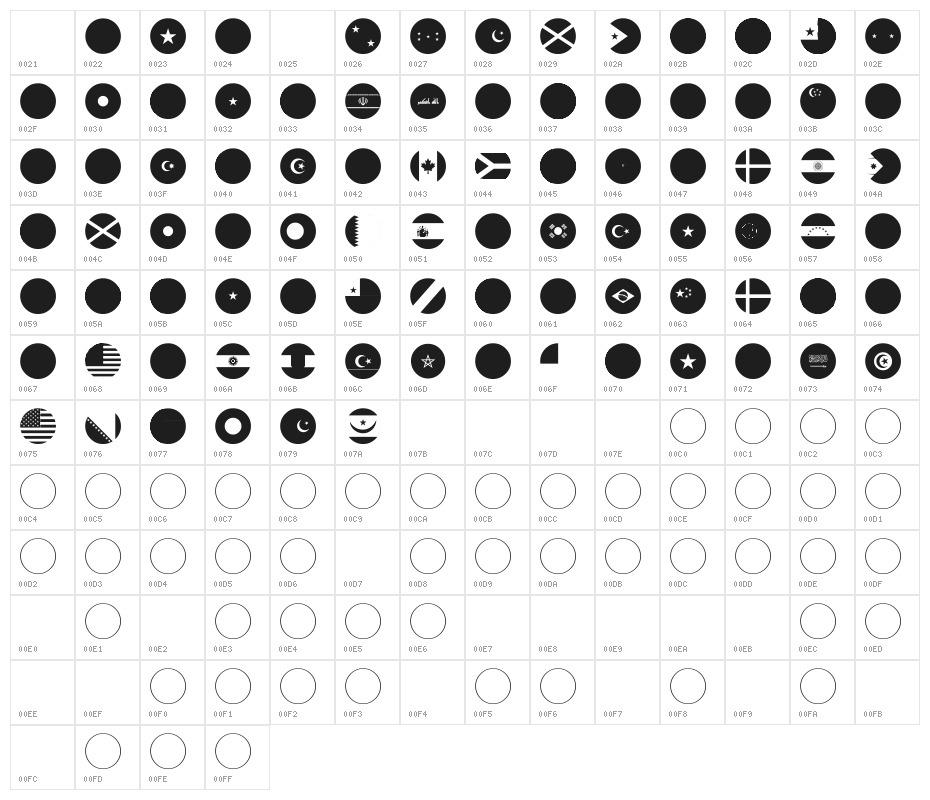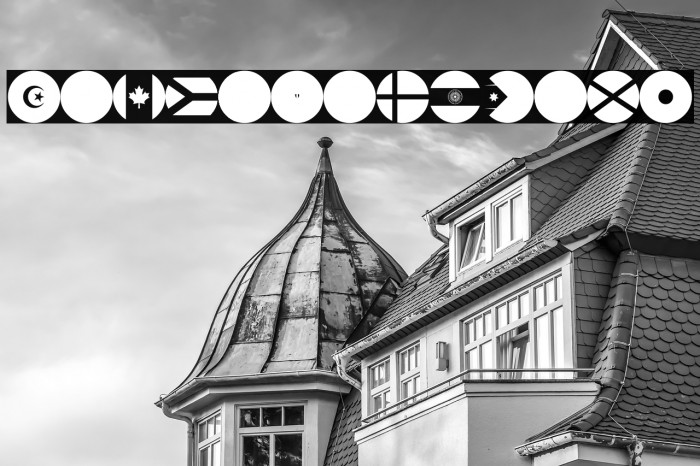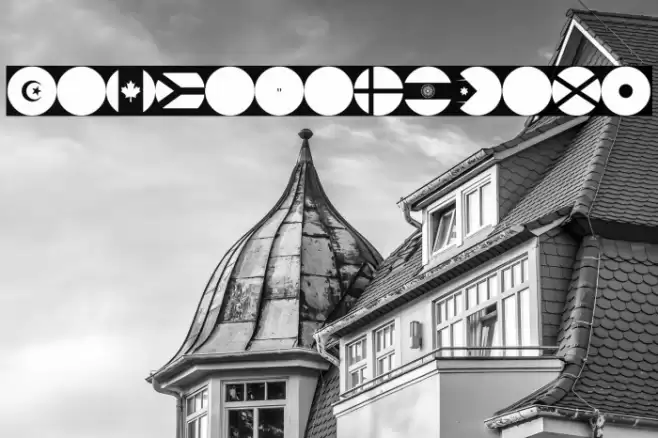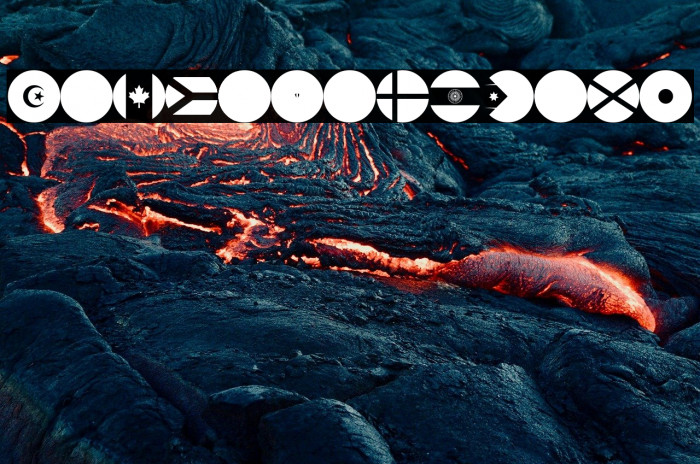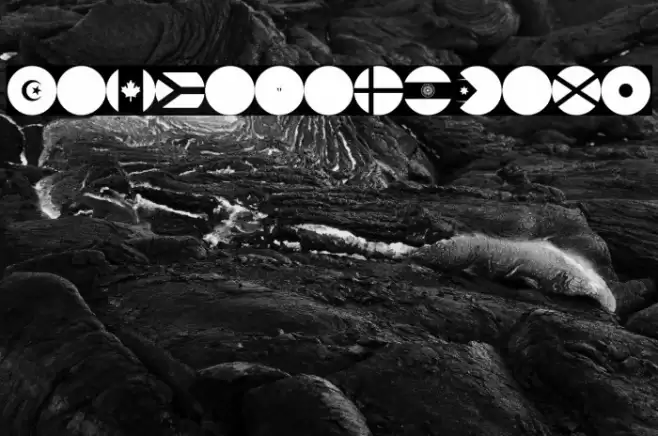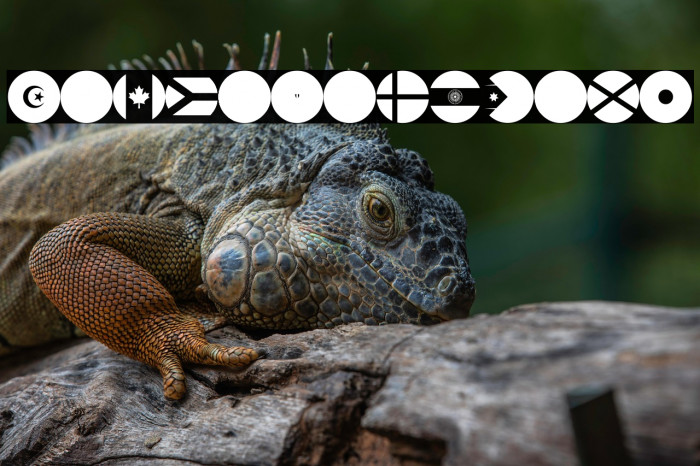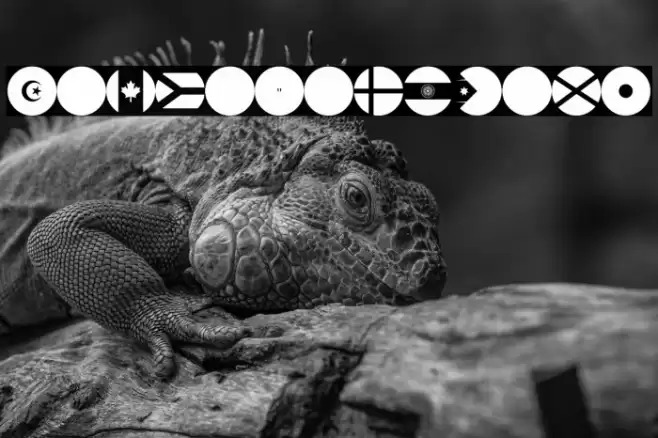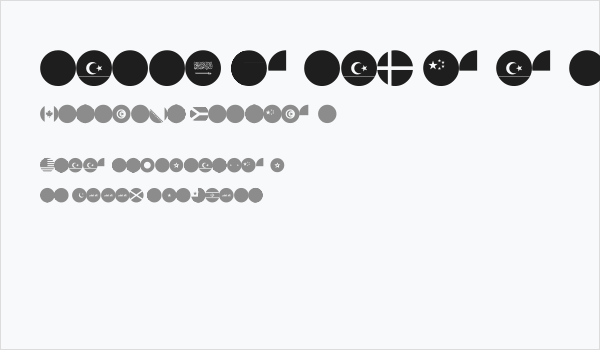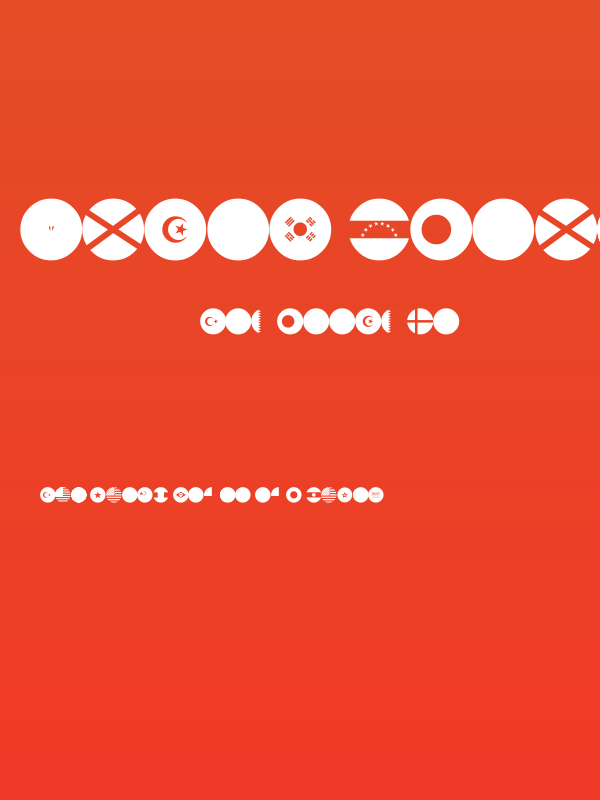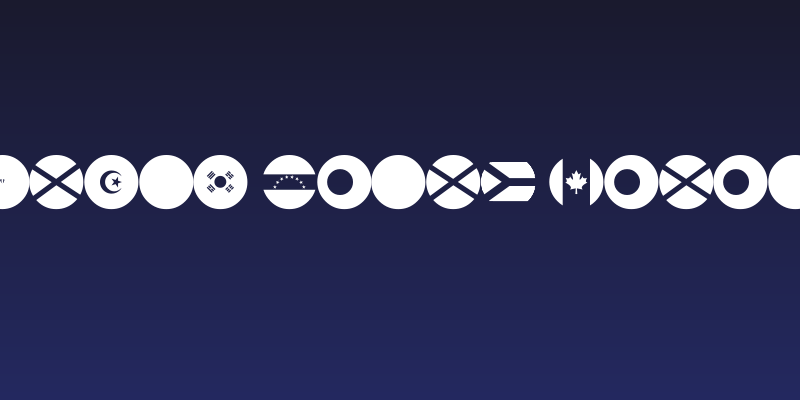
flags world color Font
flags world color Description
A decorative dingbat font featuring circular icons representing various world flags, each simplified into high-contrast black and white silhouettes. The glyphs are geometric, with consistent circular shapes and minimal detail, focusing on recognizable flag elements such as stars, crescents, and stripes.
| Overall Style | Decorative, Modern, Iconic |
| Use Case | Icons, Infographics, Educational tools, Themed graphics |
| Proposed Projects | Educational materials, geography games, travel websites, infographic icons, multicultural event branding. |